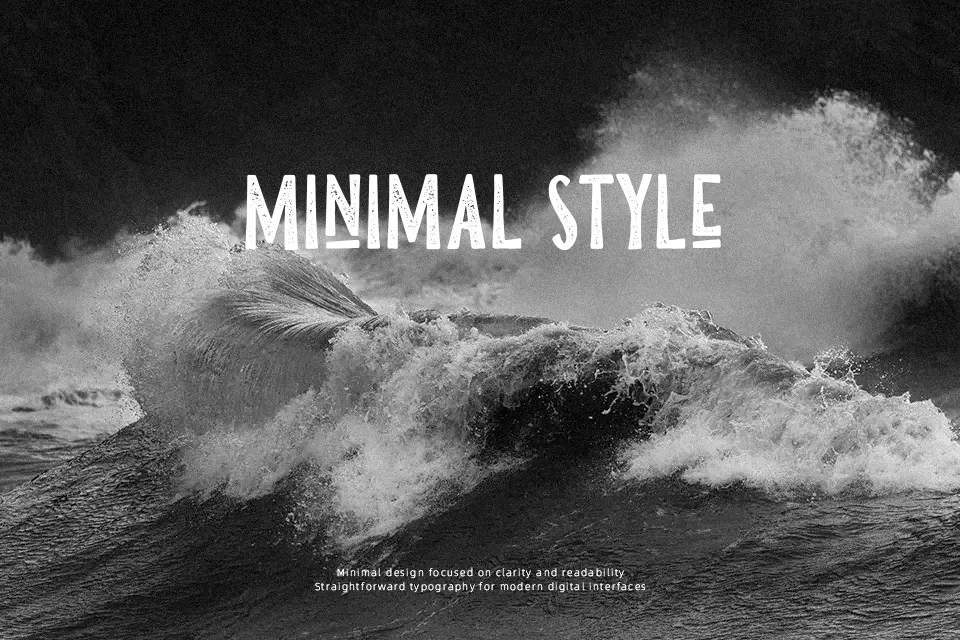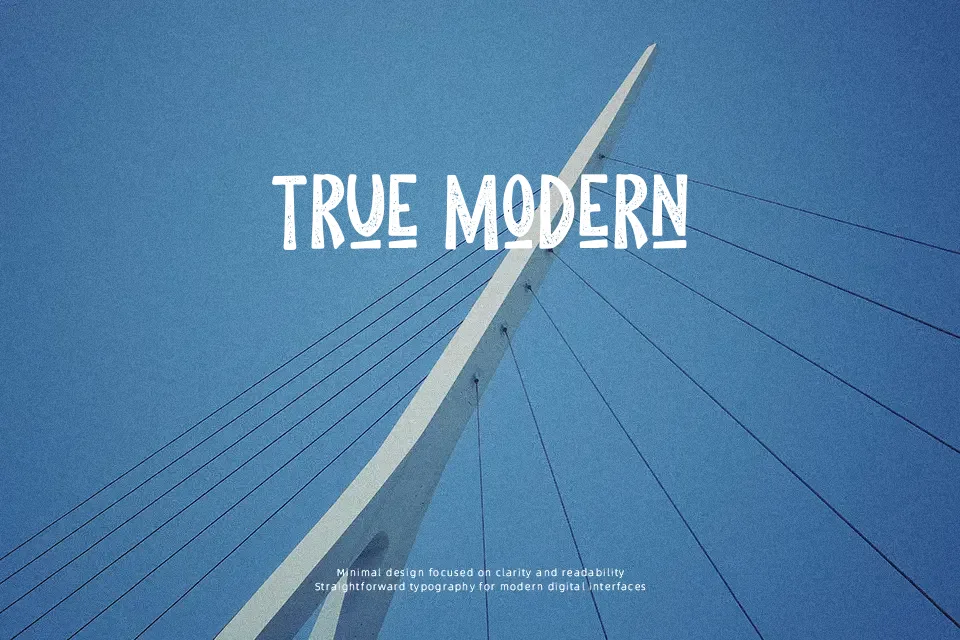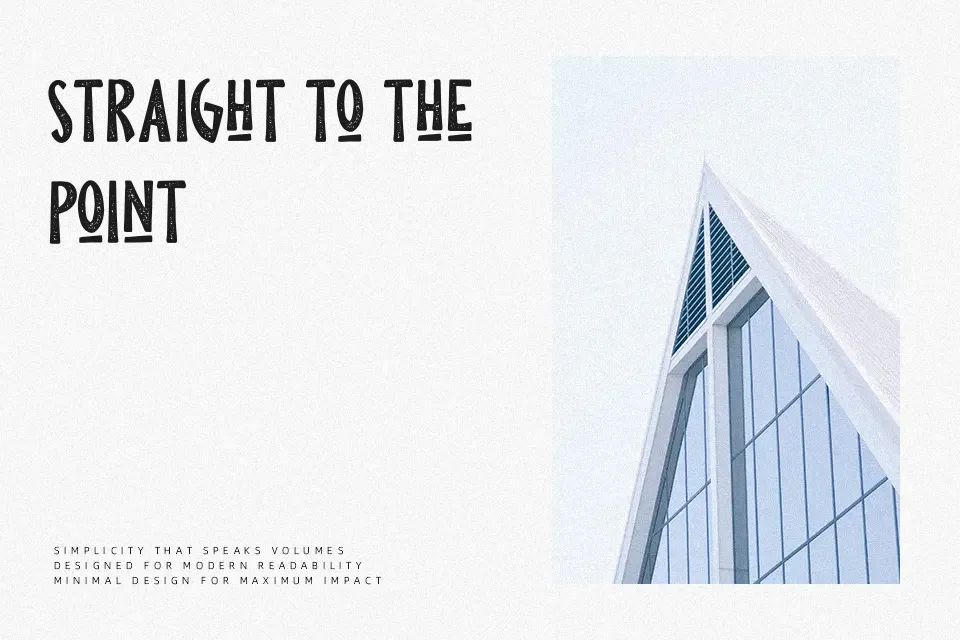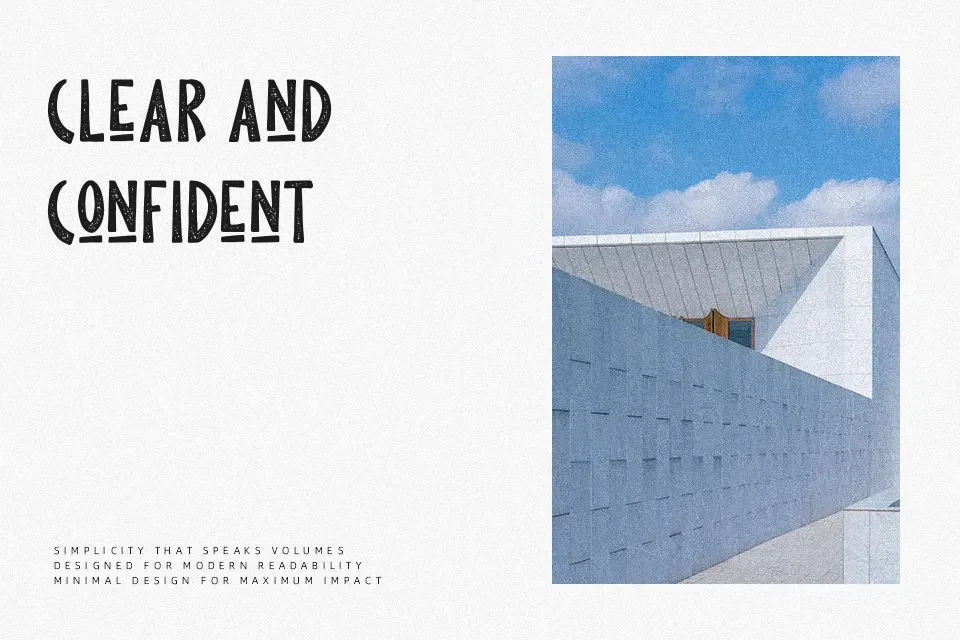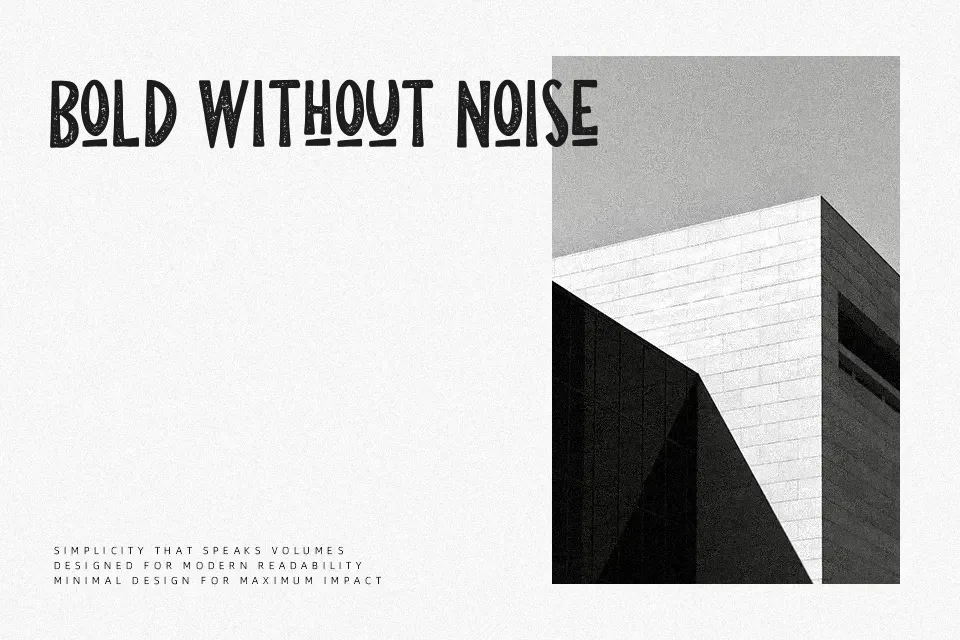
Pine Forest Font
Designed by Dikas Studio
Pine Forest Font works best as a large-scale display face with uneven, hand-drawn sans serif forms and visibly rough surface texture. Its uppercase and lowercase letterforms have broad proportions, sturdy strokes, and an informal rhythm rather than precise geometric consistency. Spacing appears open enough for short headlines, labels, and poster text, while the worn edges add visual character to simple compositions. The design holds attention well in prominent titles and packaging. However, the textured outlines and irregular details become less comfortable in small captions, dense layouts, or extended reading.
Best For: outdoor event posters,artisan product labels,apparel graphics,logo headlines